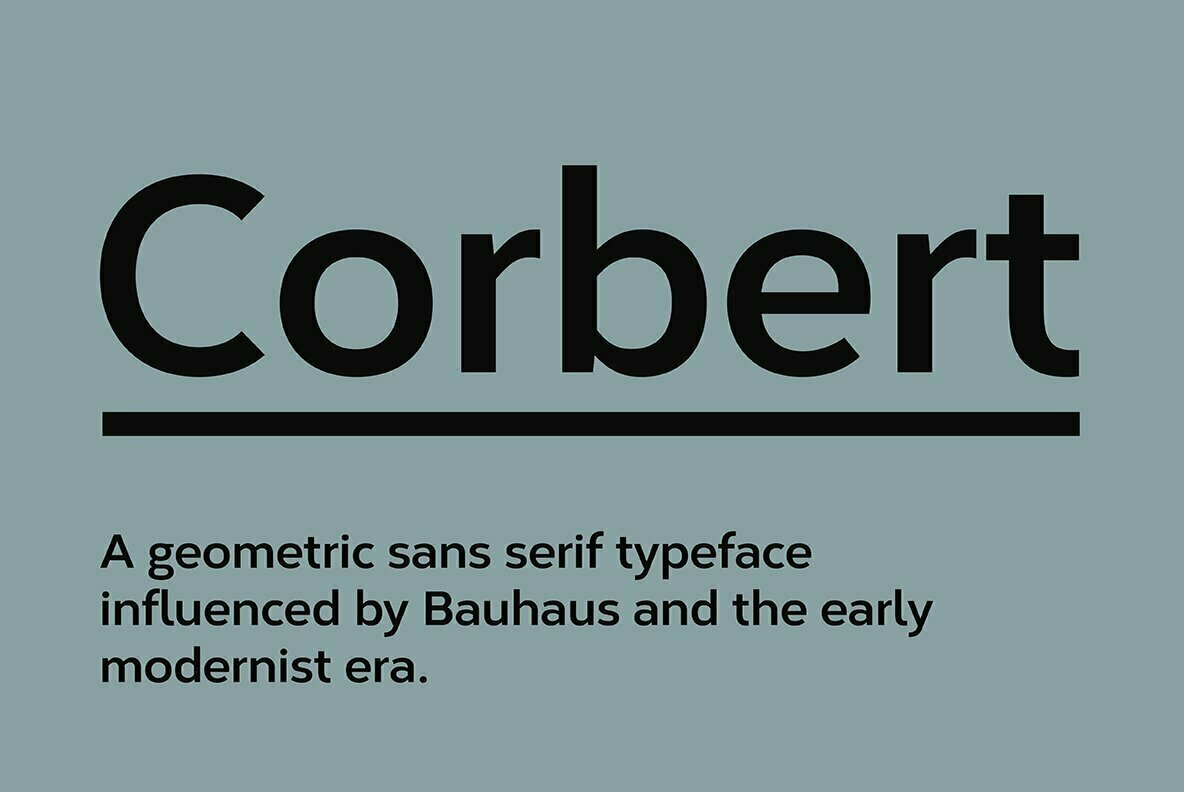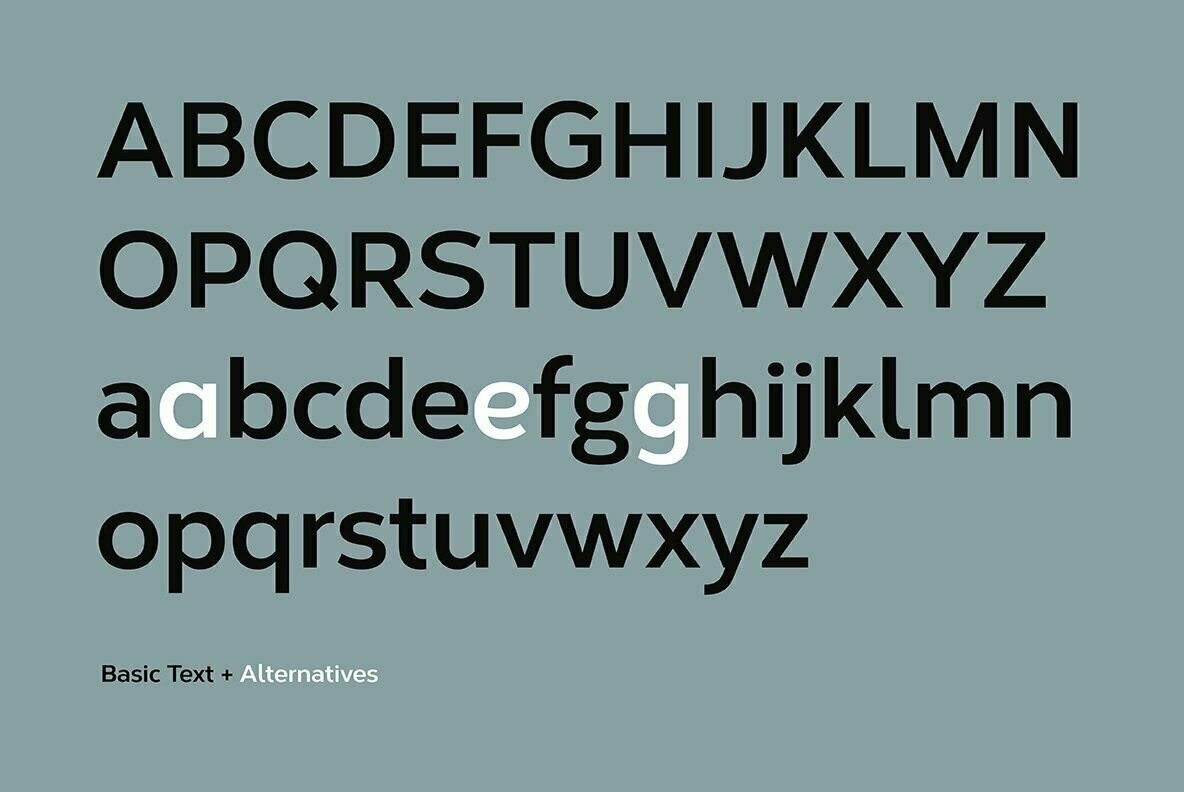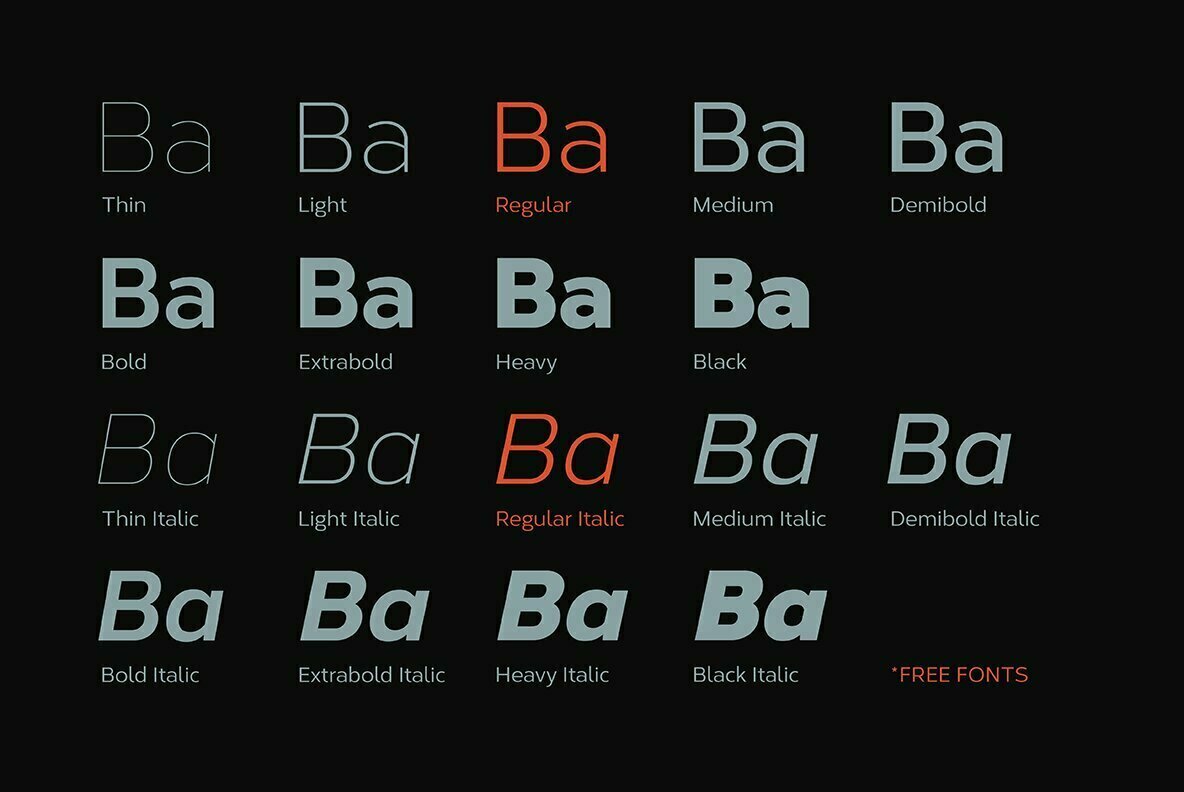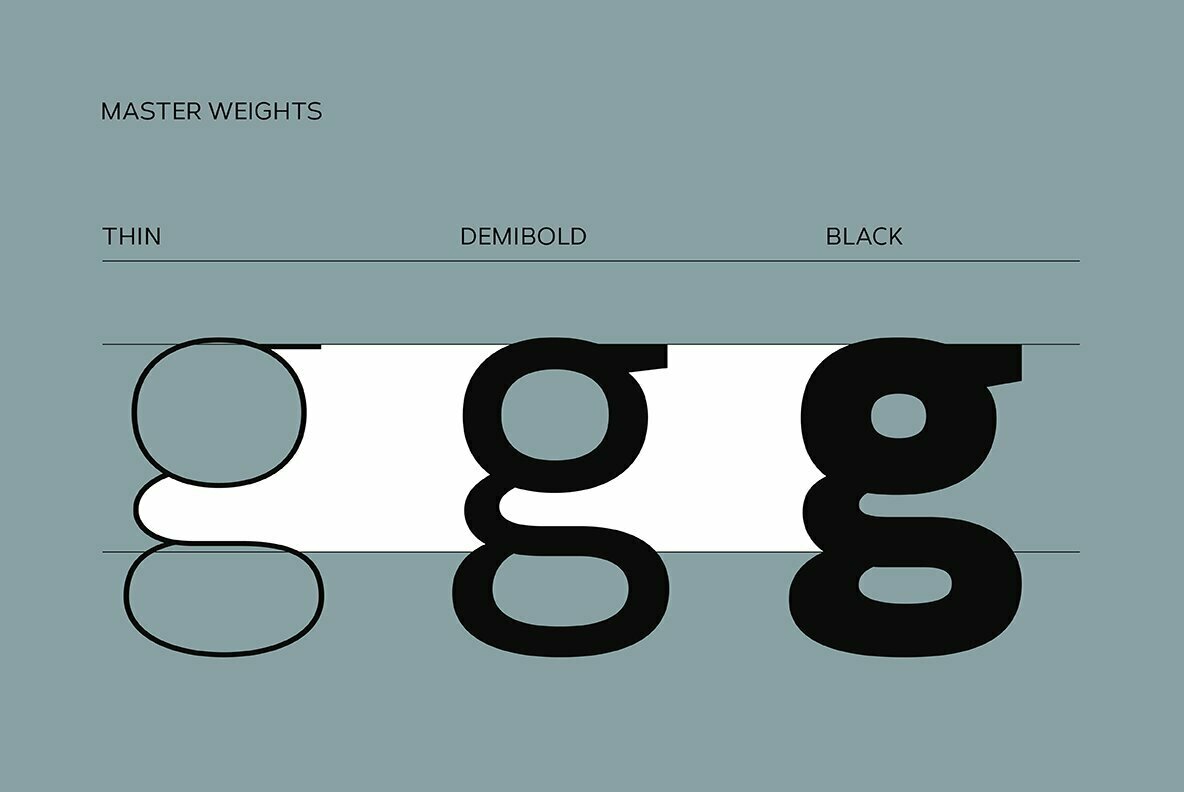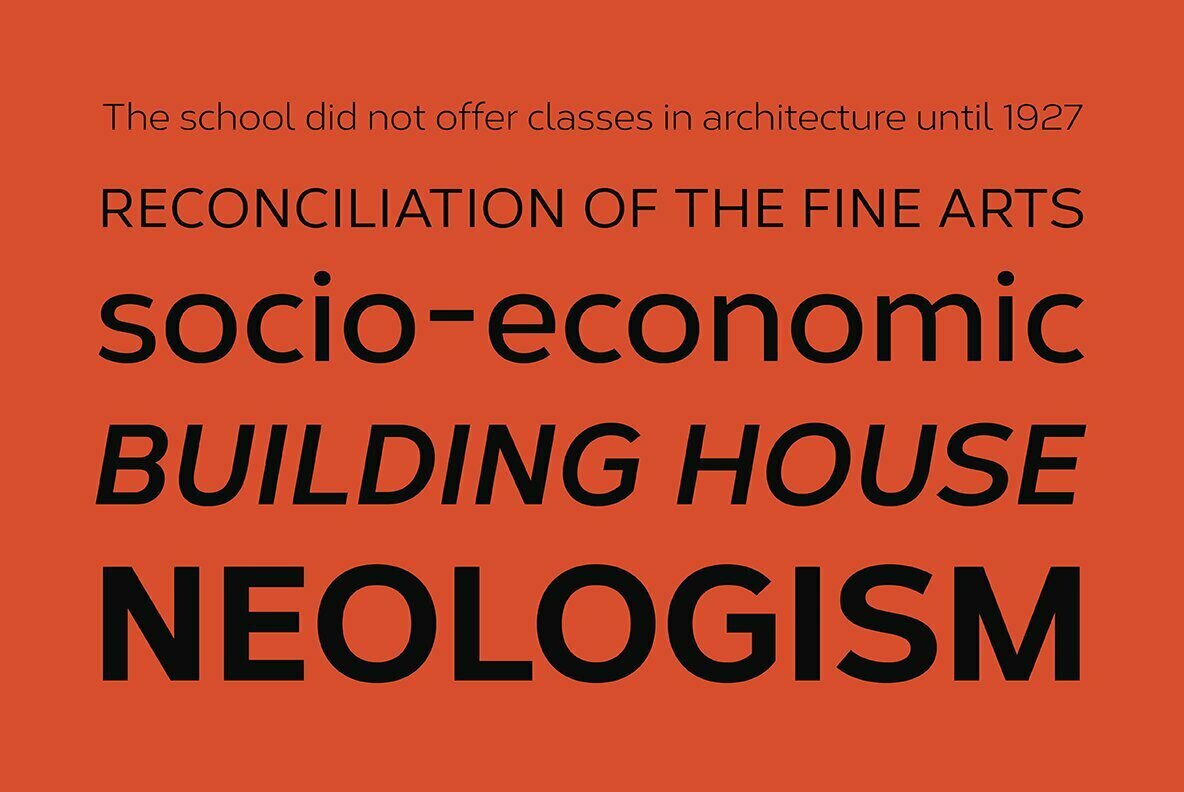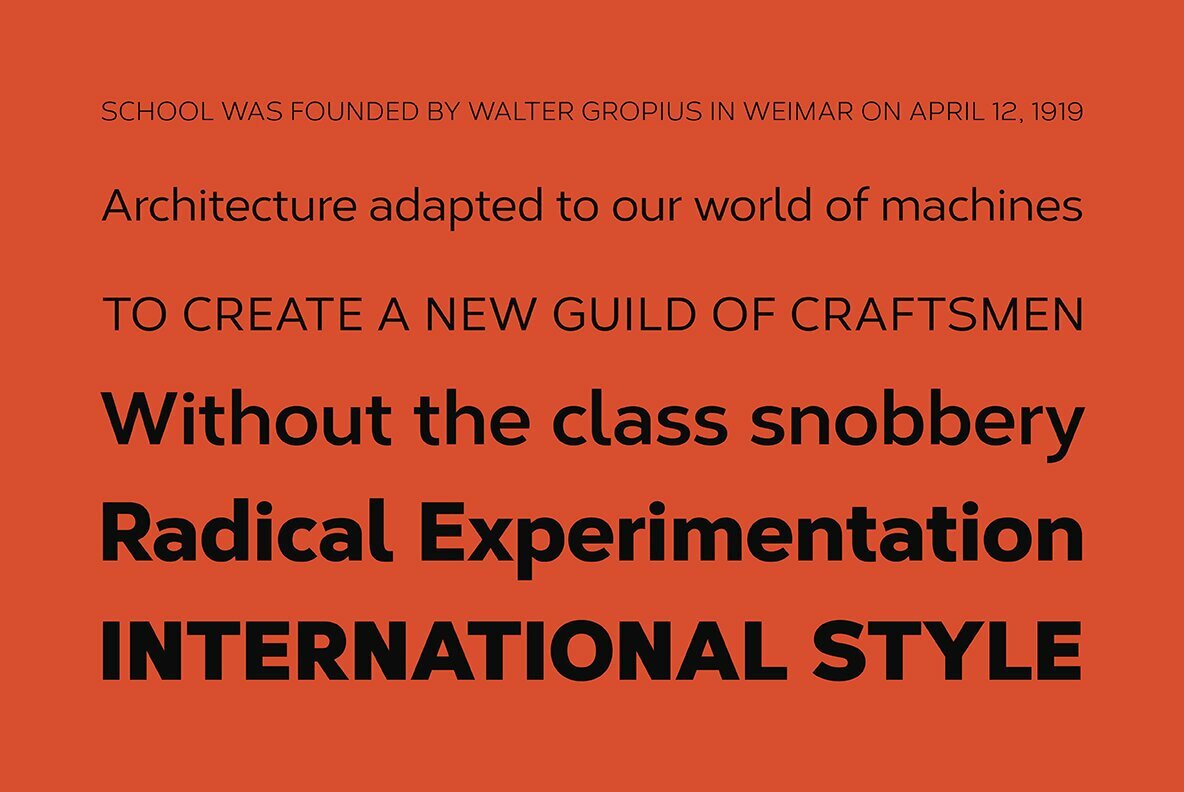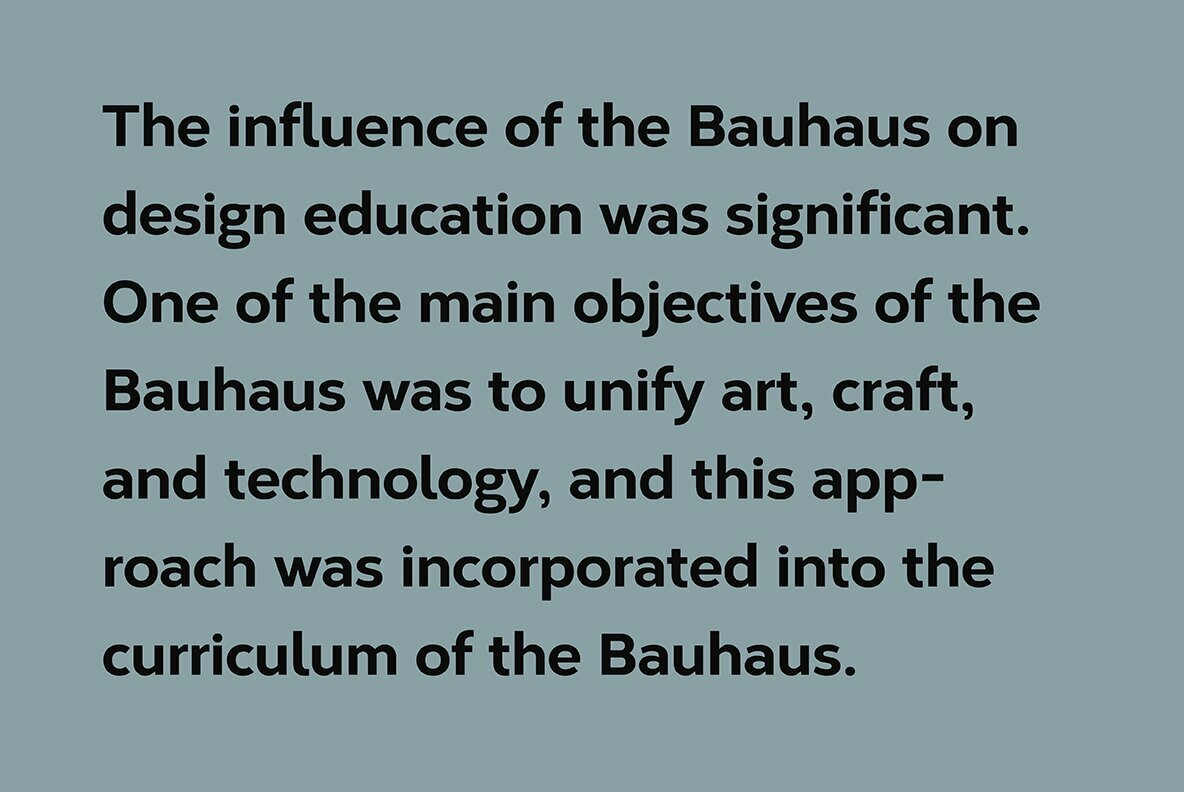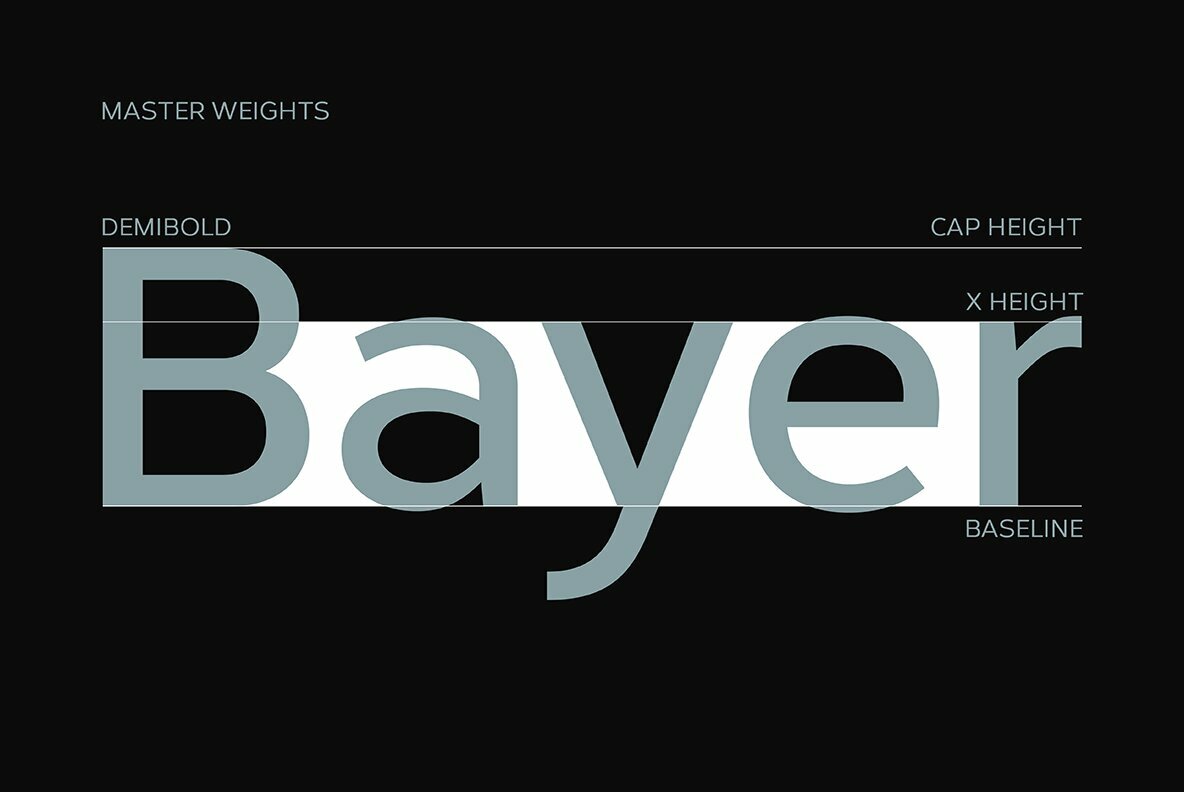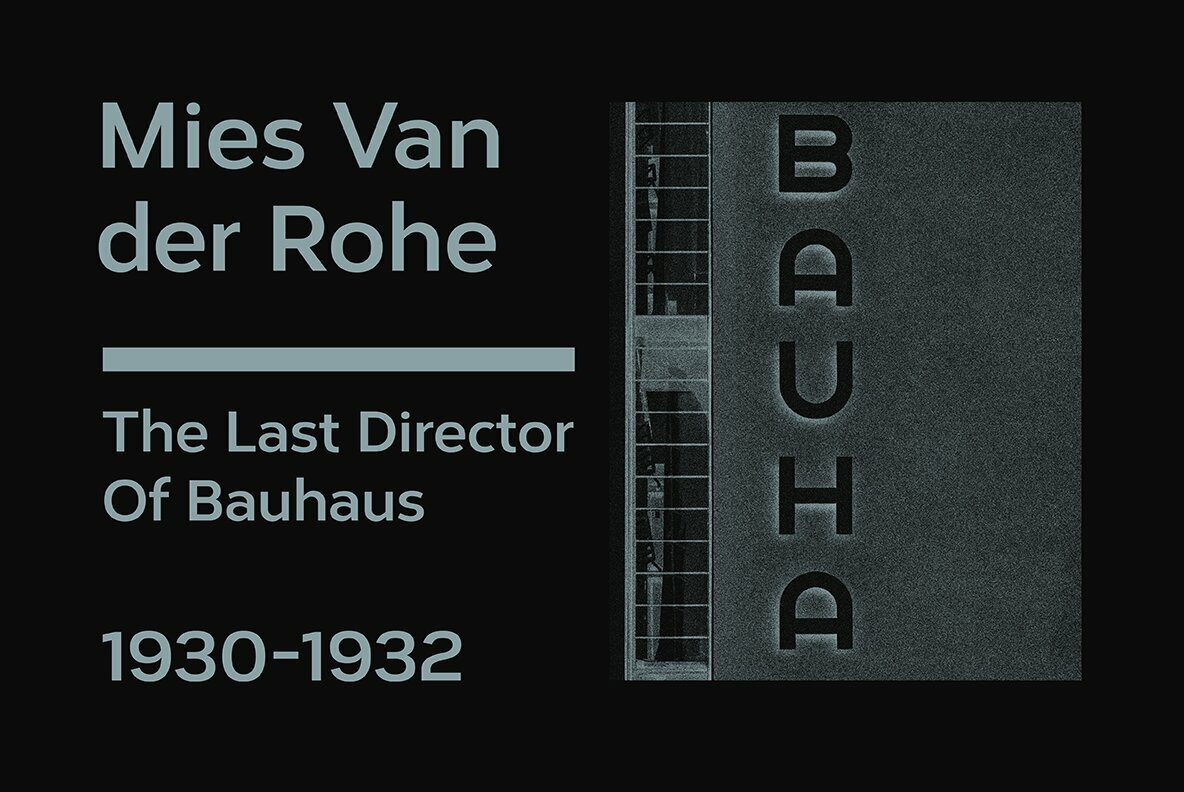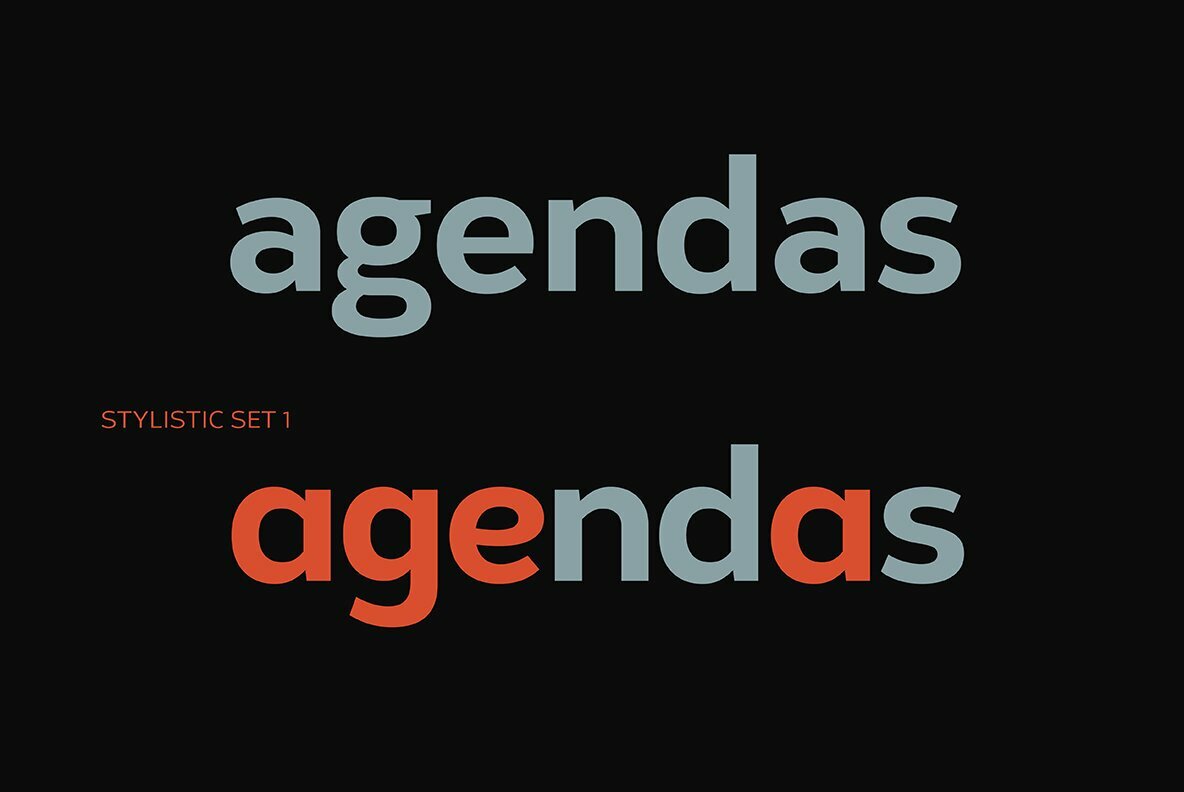
Corbert
Foundry: The Northern Block
A geometric sans serif typeface influenced by Bauhaus and the early modernist era. Precise circles are optically adjusted to create a clear, natural typeface with great legibility. Details include 540 characters with alternative lowercase a, e and g, 5 variations of numerals, manually edited kerning and Opentype features.